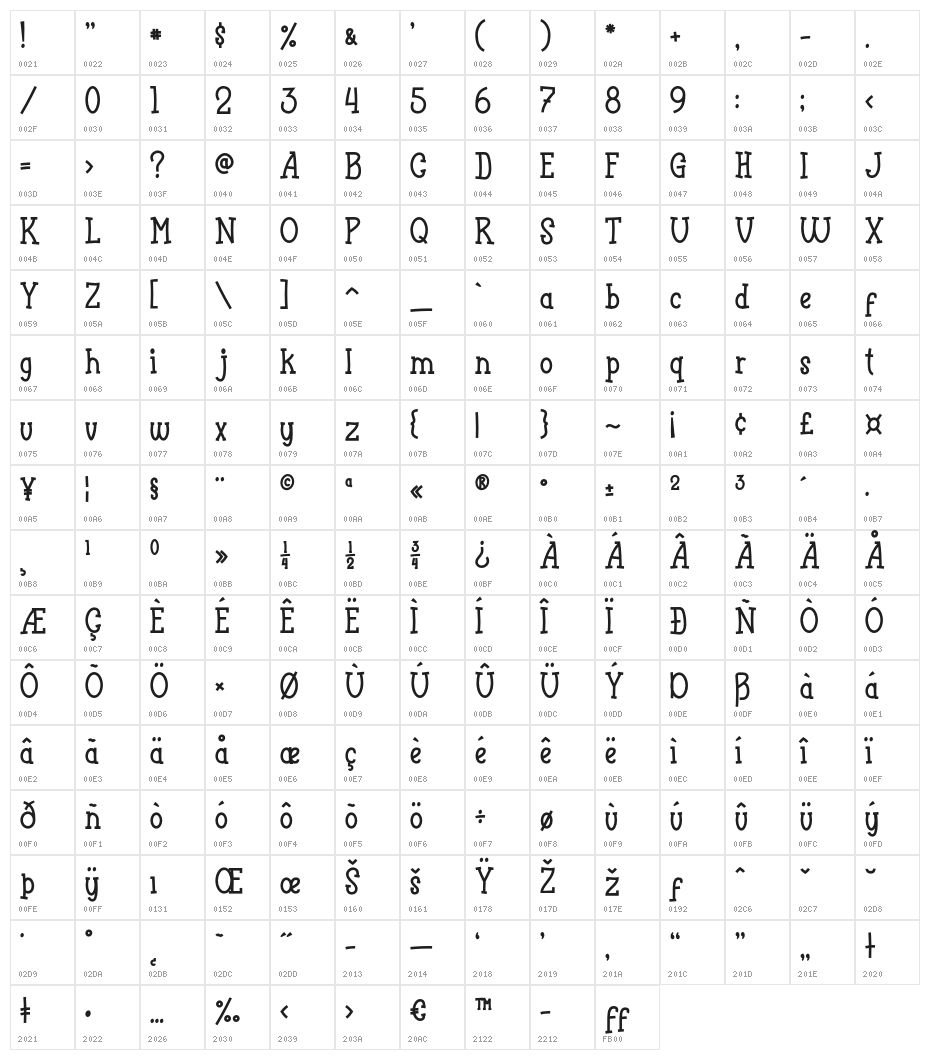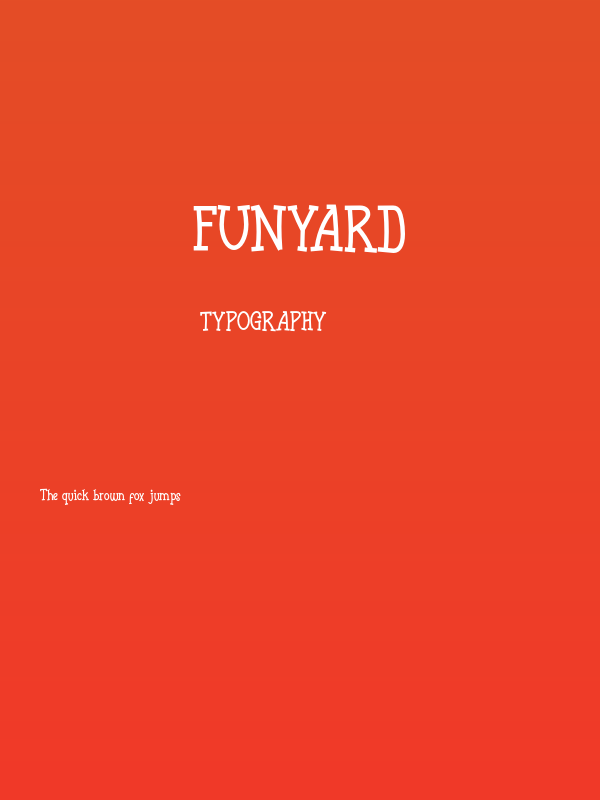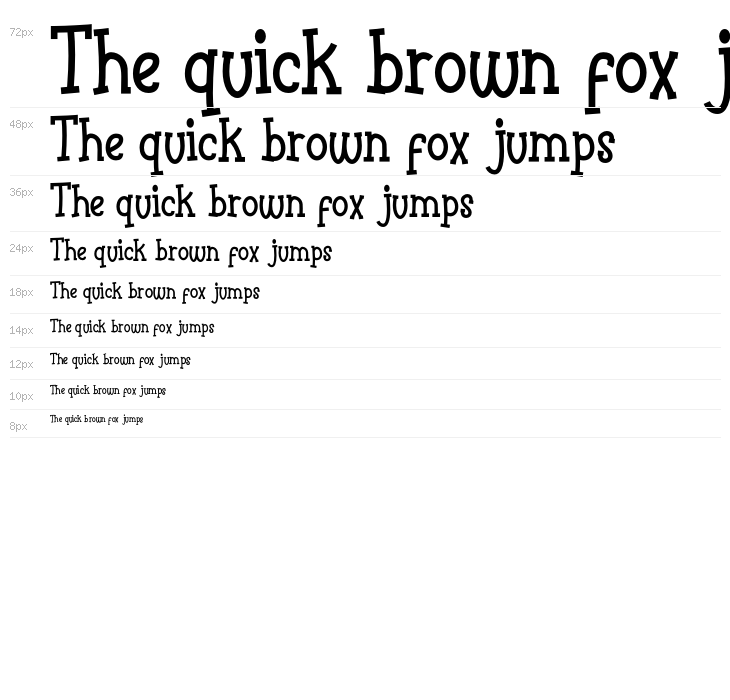
Funyard Font
Funyard Description
This playful and whimsical font features a unique, hand-drawn style that exudes a sense of fun and creativity. The characters are slightly irregular, with varying stroke widths that add to its charm. The uppercase letters are bold and prominent, while the lowercase letters maintain a consistent flow, making it suitable for eye-catching designs. The numbers and special characters follow the same playful aesthetic, ensuring a cohesive look across all text elements. This font is perfect for projects that require a touch of personality and flair.
| Proposed Projects | Ideal for children's books, playful branding, party invitations, and creative posters. |